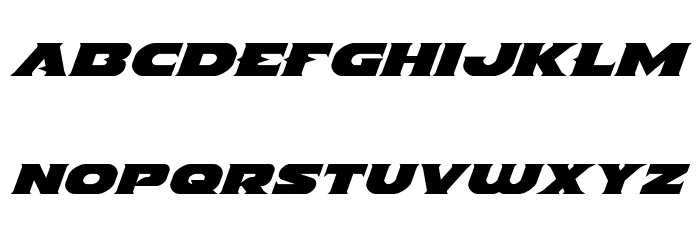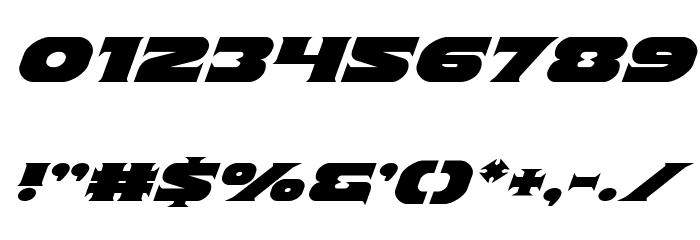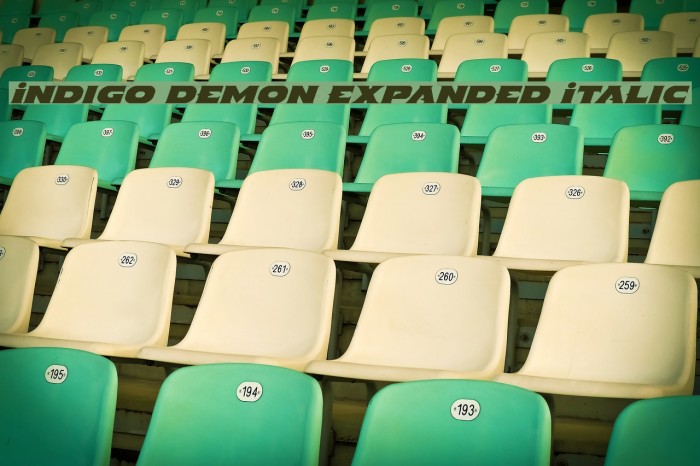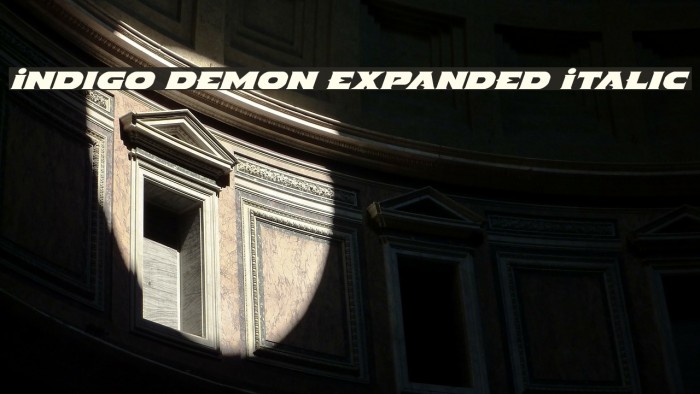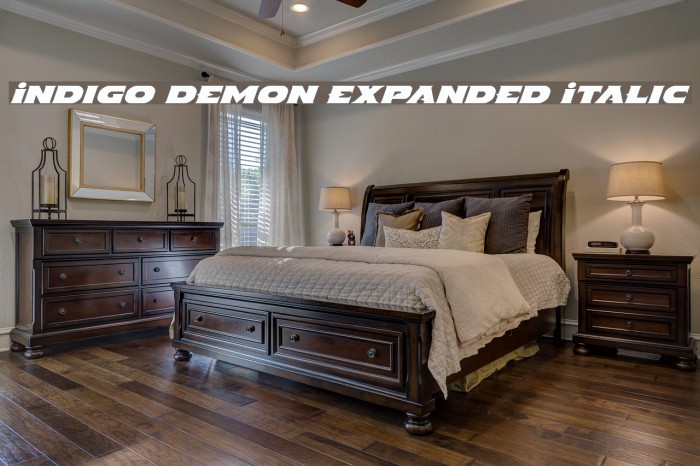
Indigo Demon Expanded Italic Font
This font features a bold and dynamic style with a strong italic slant, giving it a sense of motion and energy. The characters are expanded, providing a wide stance that enhances its bold appearance. The strokes are thick and consistent, contributing to a high contrast between the characters and the background. The design incorporates sharp angles and edges, adding a modern and aggressive touch. This font is particularly eye-catching and is designed to stand out, making it suitable for impactful headlines and attention-grabbing designs.
A bold, expanded italic font with high contrast and sharp angles.
- Proposed Projects: Ideal for sports branding, action movie posters, video game titles, and dynamic advertising campaigns.